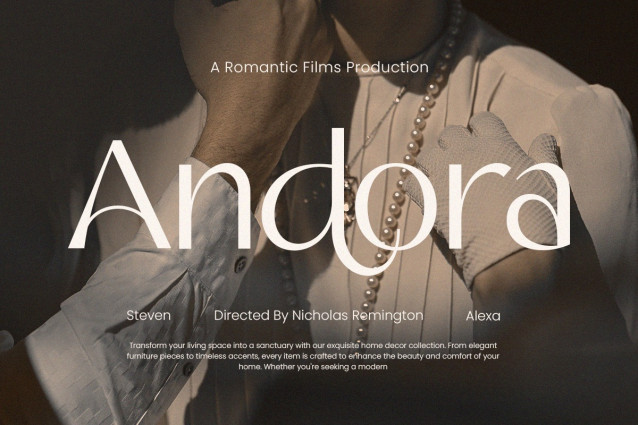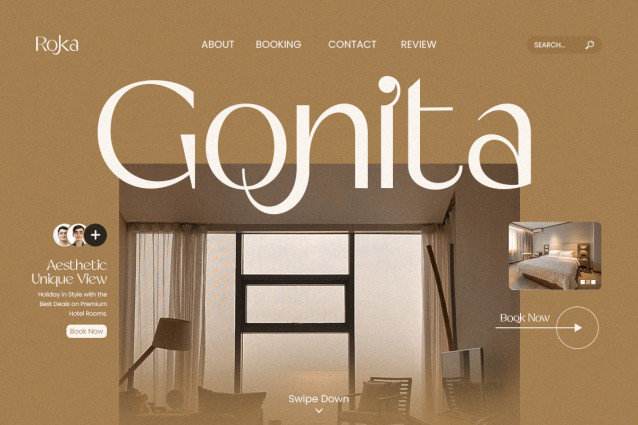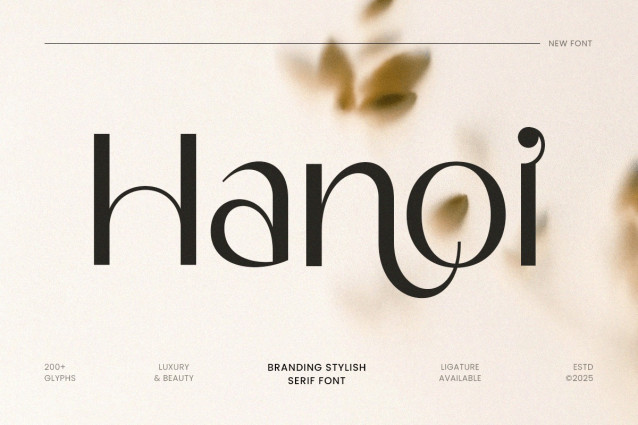
Hanoi Font is an elegant, brand-focused serif typeface designed to bring sophistication and elegance to your creative projects. With its refined letterforms and balanced proportions, it’s ideal for logos, branding, packaging, editorial designs, and high-end digital or print projects. Combining a modern aesthetic with classic serif elements, Hanoi offers a polished, professional look while remaining versatile and legible. It’s perfect for designers seeking a chic, elegant, and timeless style.